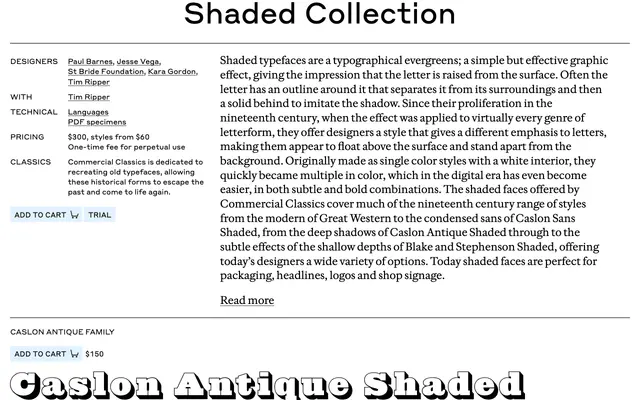
Shaded Collection
Shaded Collection specimen from Commercial Type
Commercial Type's grouping of shaded, inverse, open and chromatic display faces drawn from nineteenth century wood and metal type.
A grouping of shaded, inverse, open and chromatic display drawings from Commercial Type, with work credited to Tim Ripper. The collection brings together Caslon Antique Shaded and Inverse, Caslon Sans Shaded, County Open and Solid, Great Western Roman and Italic, Besley Shaded, Blake and Stephenson Sans Shaded, Caslon Doric Outline and Caslon Italian Shaded. Used for posters, packaging, spirits and event identity work where you want ornamented Victorian display without leaving a contemporary type system.
Commercial Type group their shaded and ornamented display drawings under a single Shaded Collection, with contributions credited to Tim Ripper. Built from nineteenth century chromatic and shaded wood and metal type, including Caslon Antique, Caslon Sans Shaded, County, Great Western, Besley, Blake and Stephenson, and Caslon Italian.